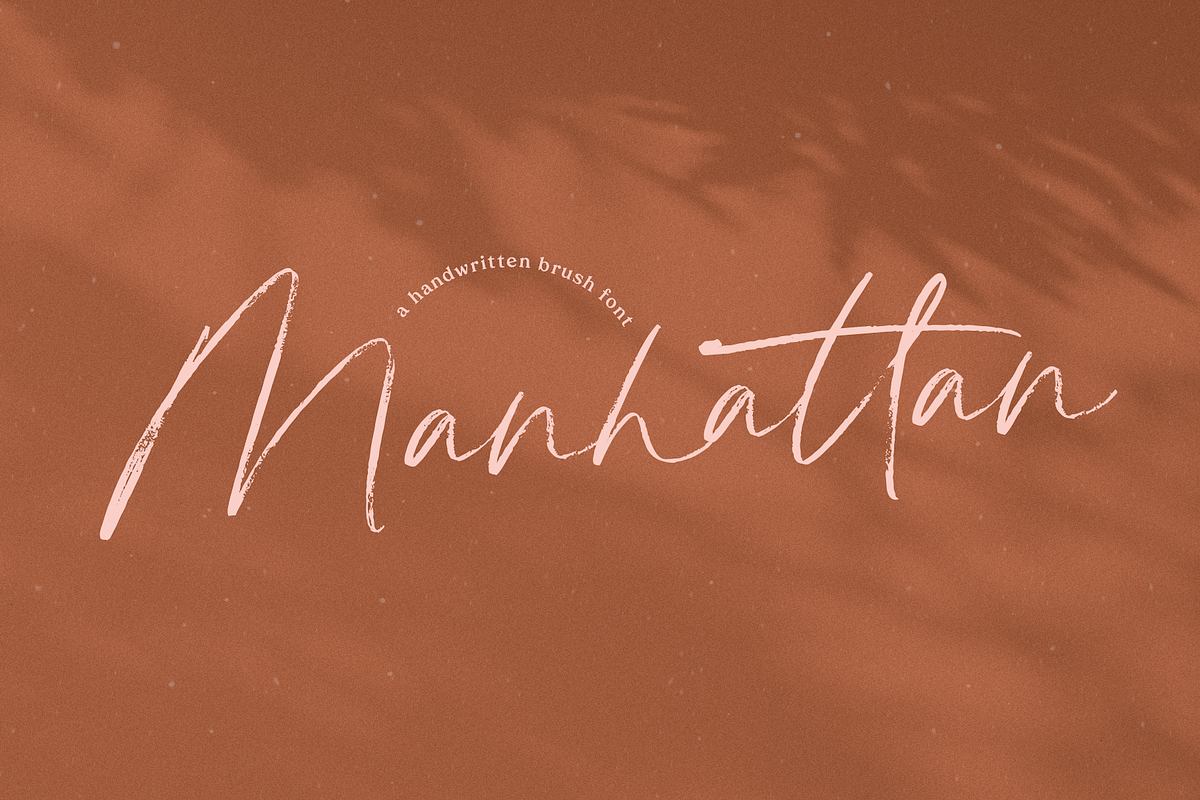
Manhattan | Brush Script Font Free Download
Manhattan | Brush Script Font Free Download is a bold and expressive typeface that channels the energy of hand-painted brush strokes with urban sophistication. Please note: you must purchase this font for commercial use, but you can test it through a free download. Perfect for posters, logos, apparel, social media graphics, and branding, Manhattan brings a confident, creative edge to any project.
Its dynamic letterforms and natural flow give off a raw yet polished vibe—ideal for both casual designs and upscale aesthetics. Whether you're creating a fashion-forward campaign or a bold quote graphic, Manhattan | Brush Script Font Free Download adds flair and personality to your typography. The font is fully compatible with Adobe Illustrator, Photoshop, Canva, and more, making it easy to plug into your creative process. Download it now for personal use and let your designs speak with stylish, hand-crafted attitude.